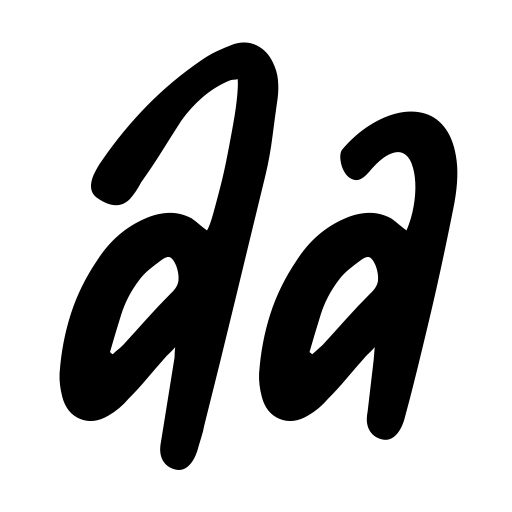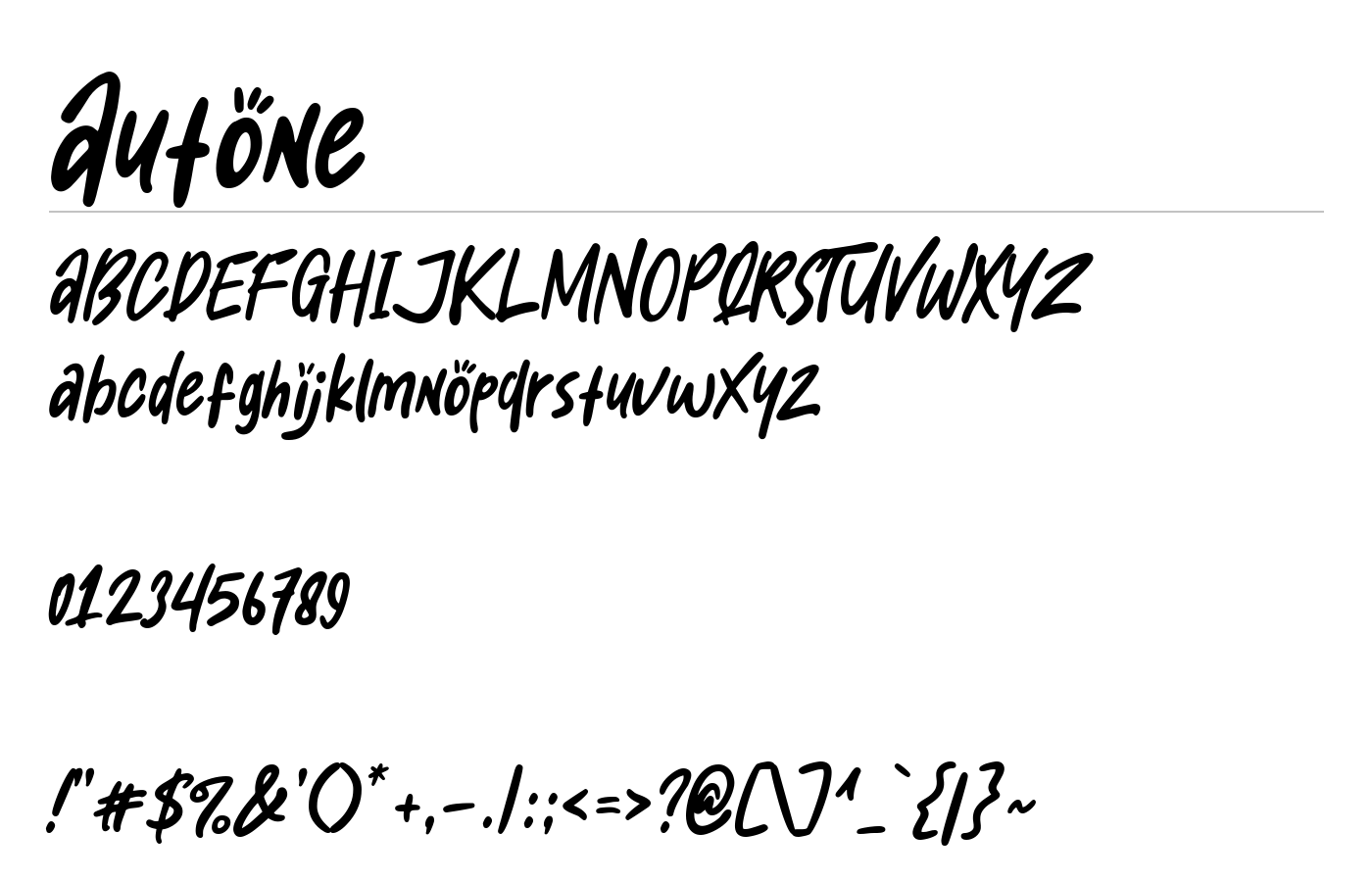
Autone is a casual, handwritten script font with a lively and energetic vibe, featuring irregular strokes and playful letterforms that mimic natural writing. Its medium weight and slightly condensed width give it a dynamic yet legible appearance, making it ideal for creative branding, informal posters, and friendly digital content where a personal touch is desired. This font’s informal style lends warmth and approachability, perfect for designs seeking a youthful, expressive, and unique character.
Autone Font
About Autone Font